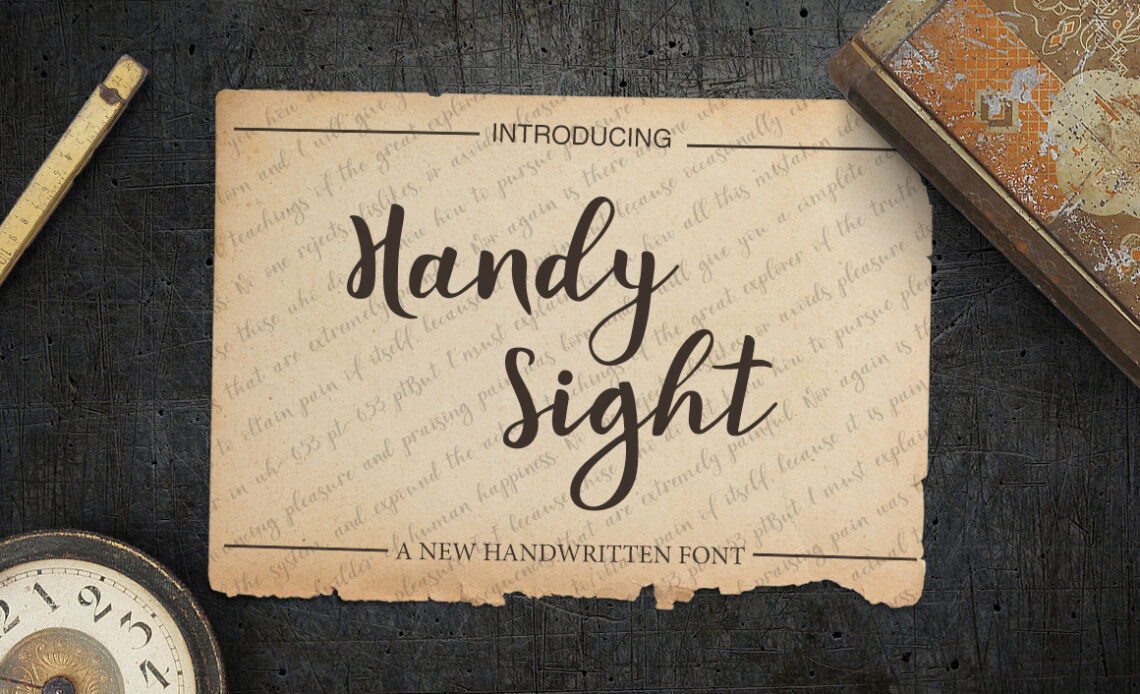
Let Handy Sight Font, a strikingly beautiful script font, cast a spell on your designs. Crafted with the utmost care using a brush, this font exudes both a modern flair and a timeless elegance.
Step into a world where your headlines dance with unparalleled charm, inviting your audience to indulge in the enchanting allure of Handy Sight. Its graceful curves and effortless flow create a visual symphony that captivates the senses.
Whether you seek to make a bold statement or craft a delicate touch, Handy Sight Font adapts effortlessly to your every whim. From sophisticated wedding invitations to captivating social media posts, it transforms ordinary text into extraordinary works of art.
Embrace the power of Handy Sight Font and unleash your creativity. Let its enchanting presence elevate your designs, leaving an unforgettable impression on all who behold it.